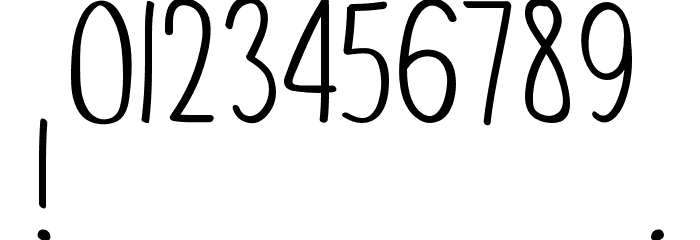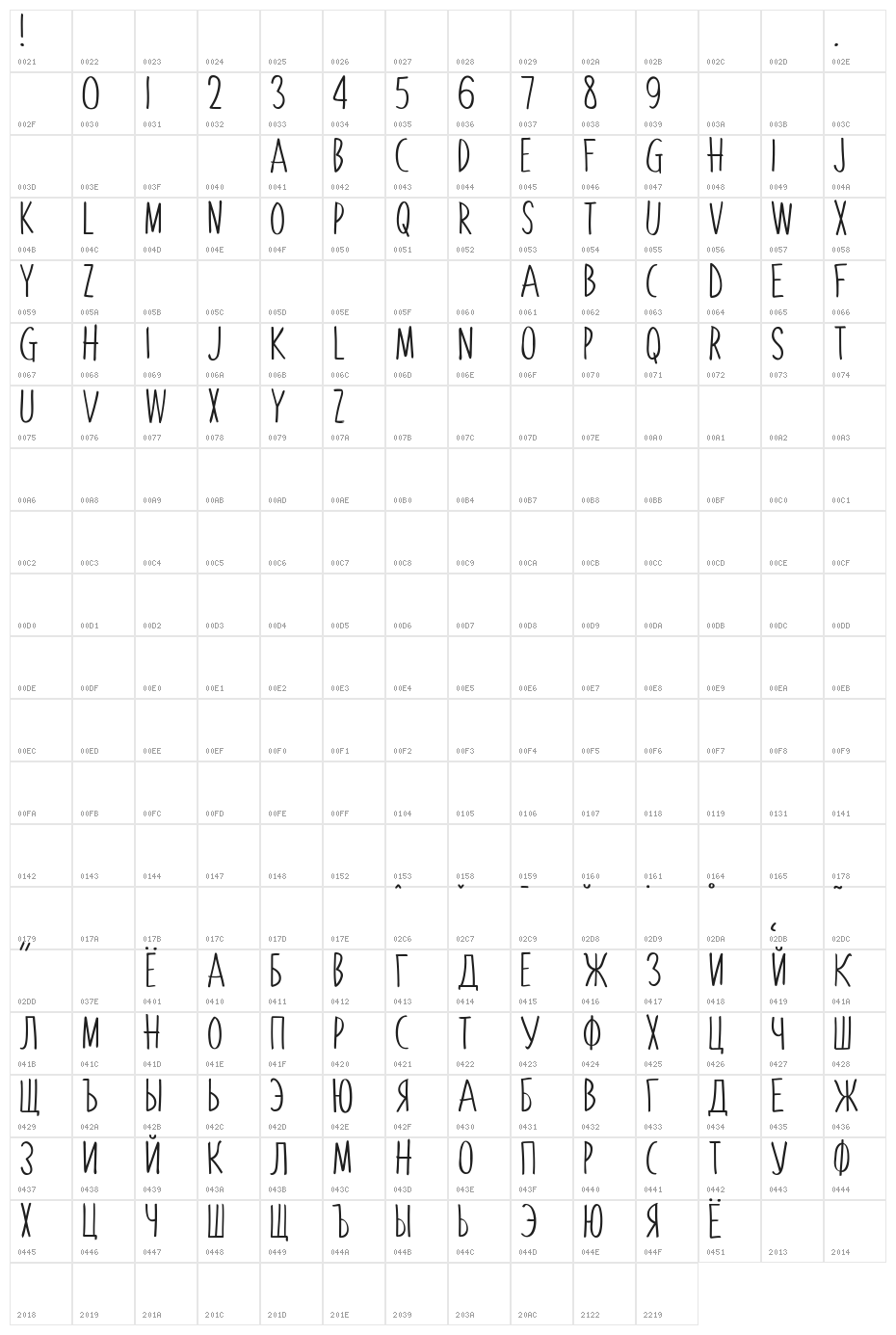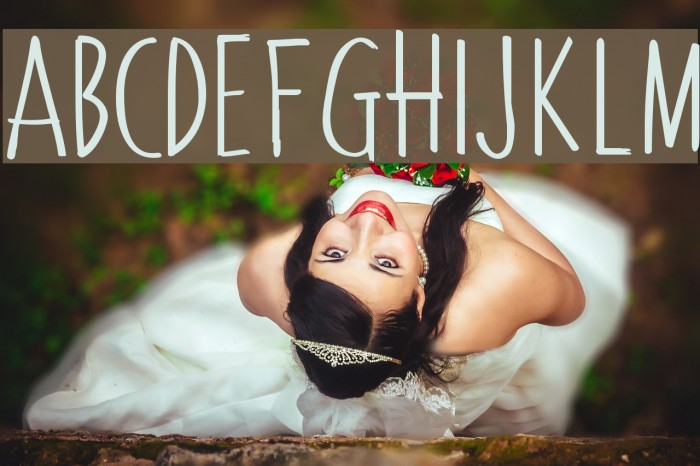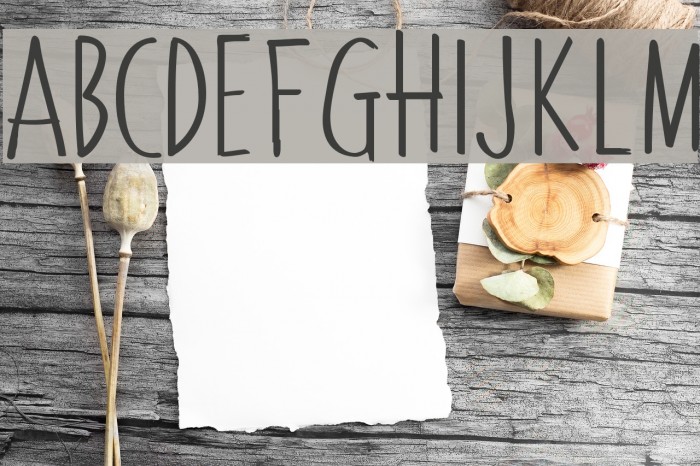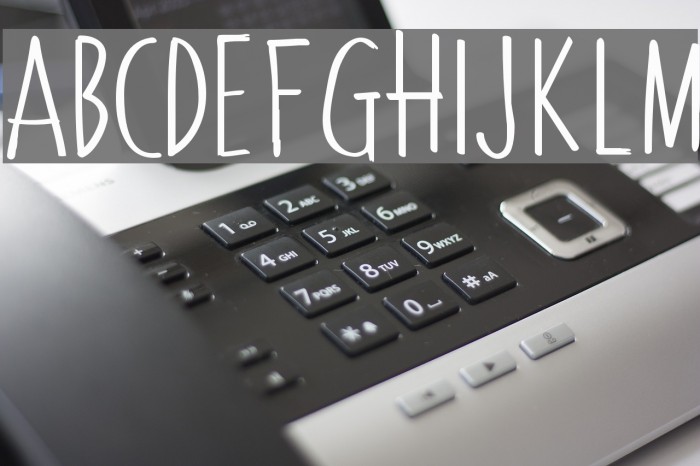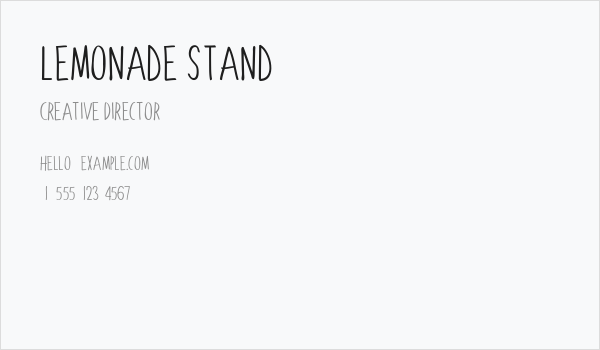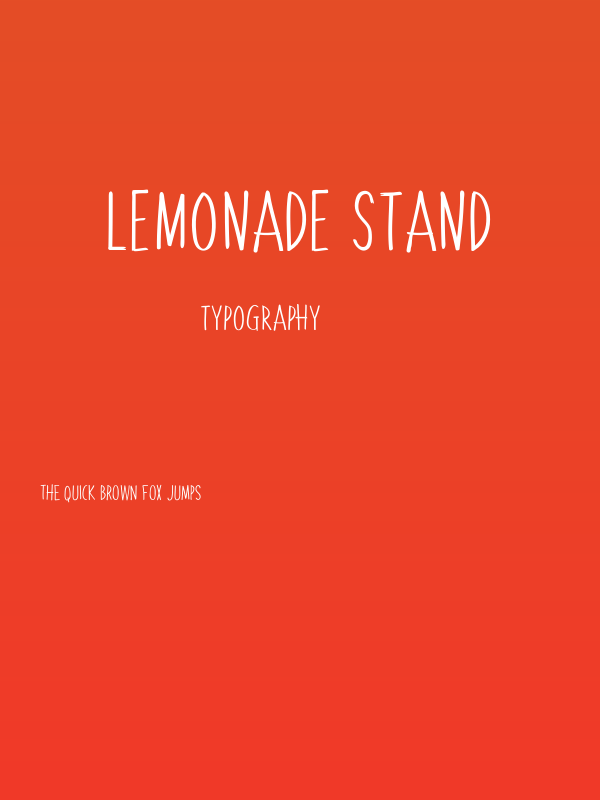
Lemonade Stand Font
Lemonade Stand Description
This playful and whimsical font features tall, narrow letters with a hand-drawn appearance, giving it a casual and friendly vibe. The characters are slightly irregular, adding to its charm and making it ideal for informal and fun projects. The uppercase and lowercase letters maintain a consistent style, with rounded edges and a slight tilt that enhances its approachable feel. The numbers and special characters are designed to match the overall aesthetic, ensuring a cohesive look across all text elements.
| Proposed Projects | Perfect for children's books, playful branding, casual invitations, and DIY crafts. |